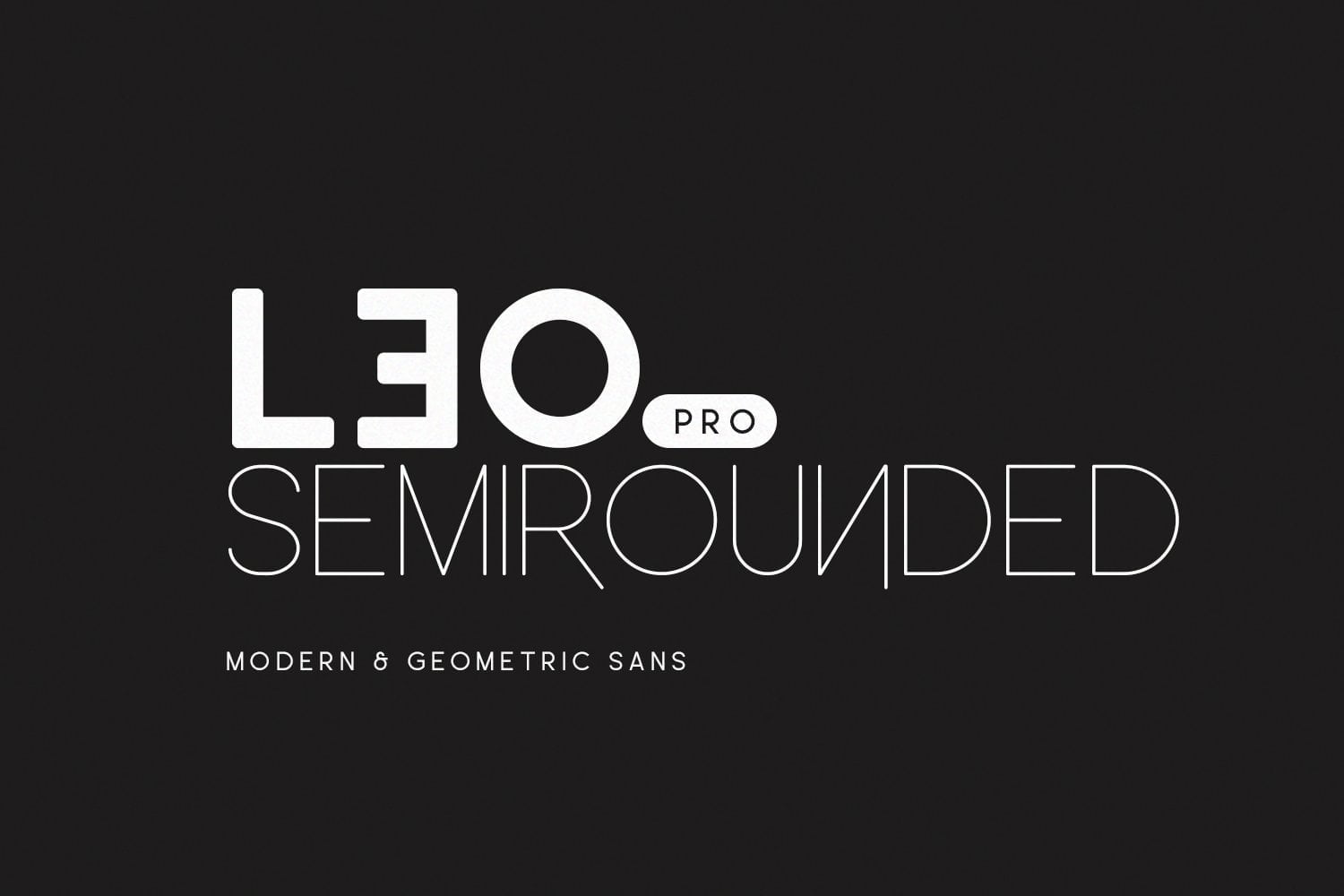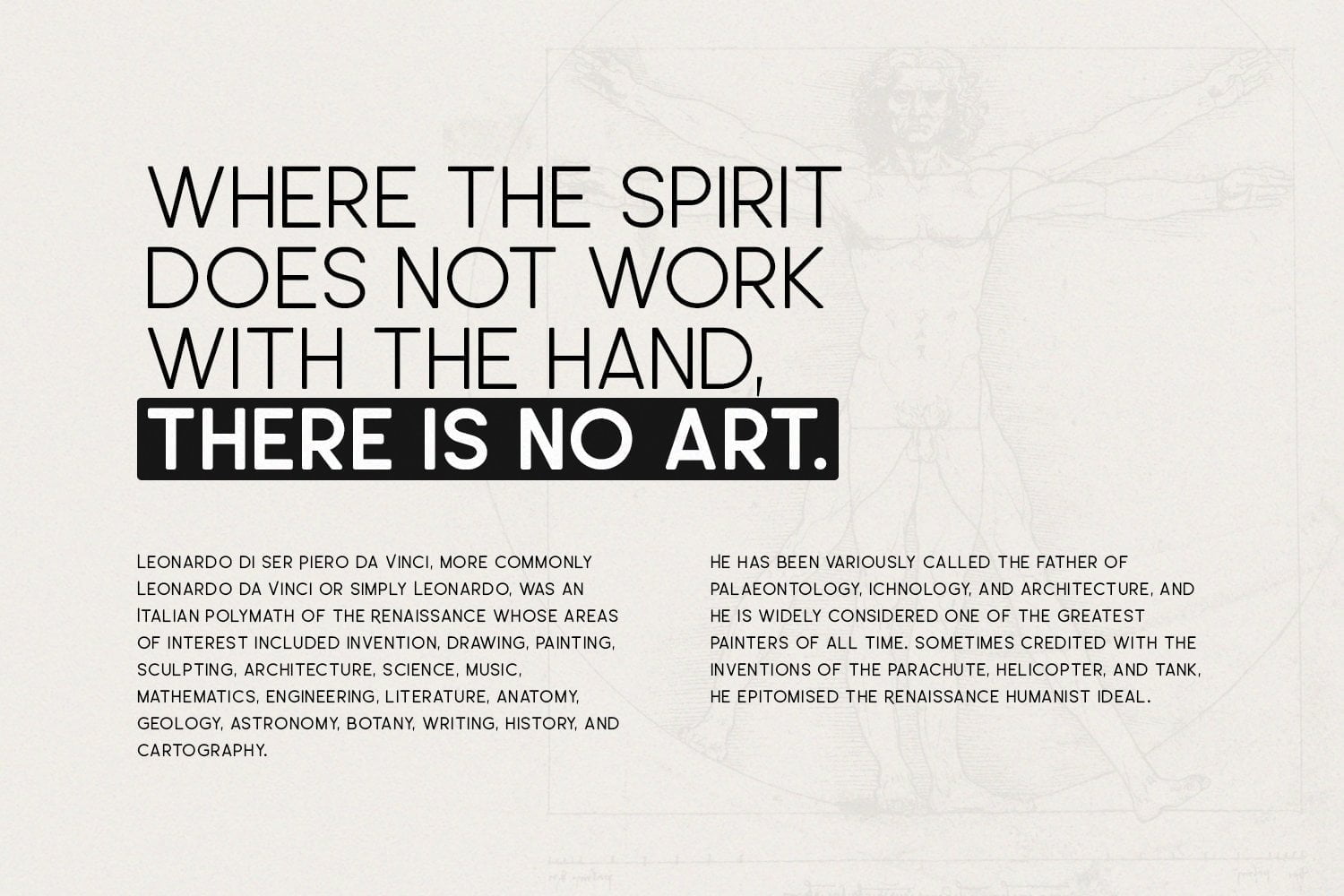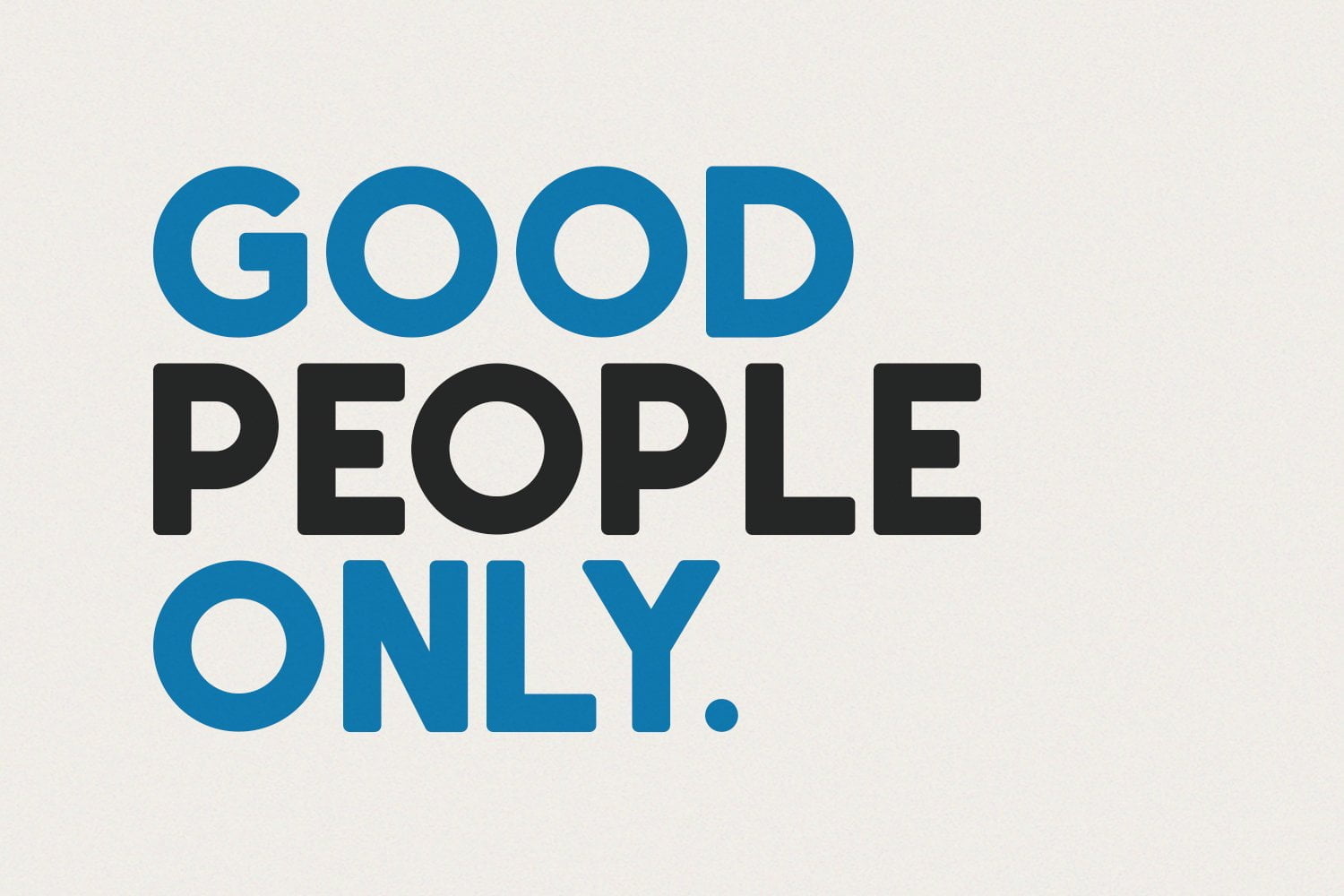
Leo Semi Rounded Pro is the second version of the Leo Sans family, a modern sans serif with a geometric touch and semi rounded corners. It comes in 10 weights, clean and modern caps, thereby creating more variability. Designed with powerful opentype features in mind. Each weight includes extended language support, currency, and more. Perfectly suited for graphic design and any display use. It could easily work for web, signage, corporate as well as for editorial design.
- 10 Weights
Leo Semirounded Sans